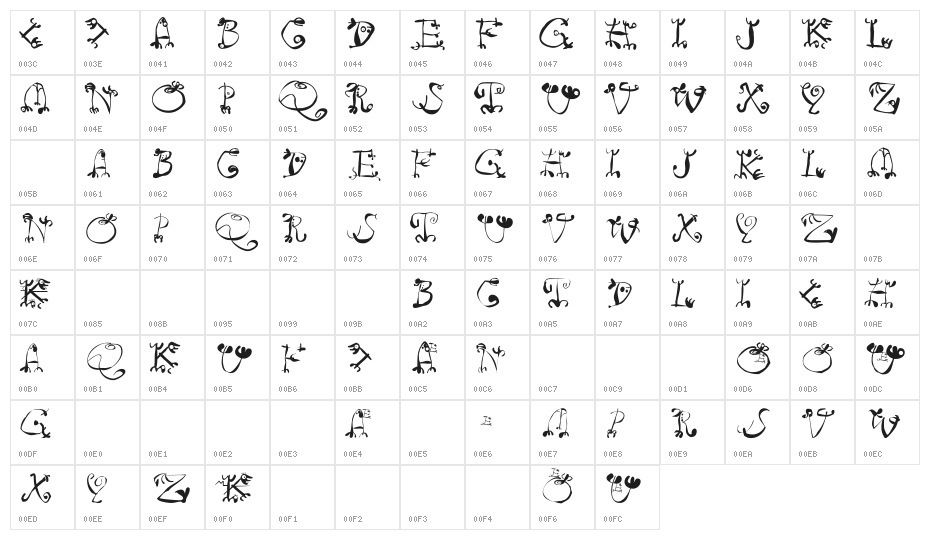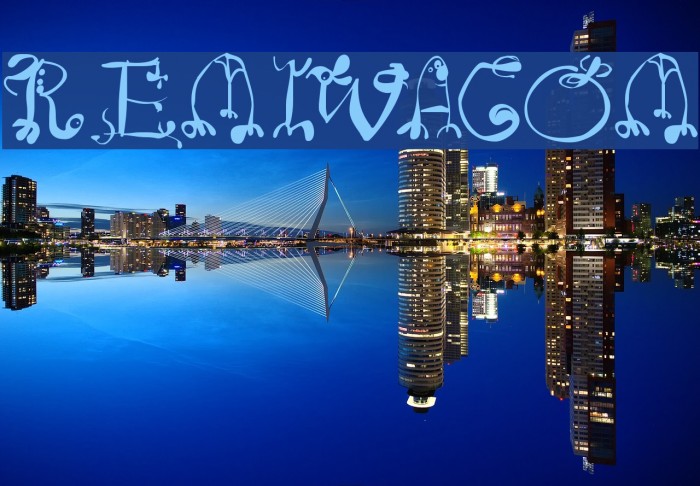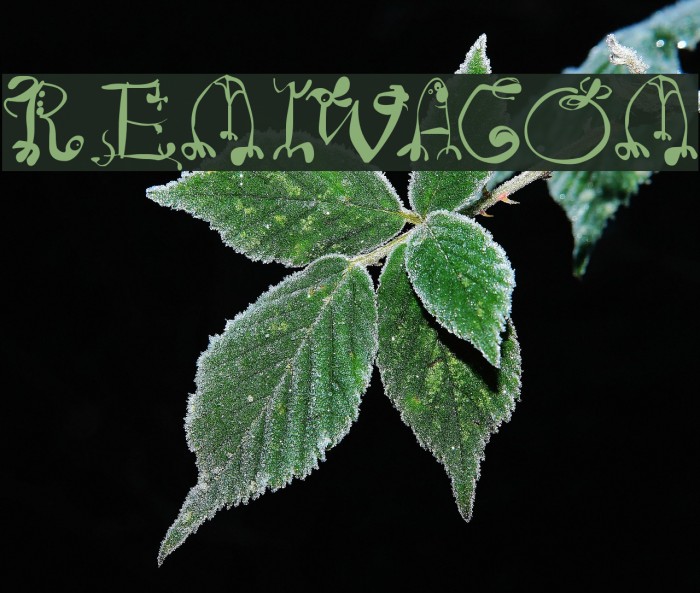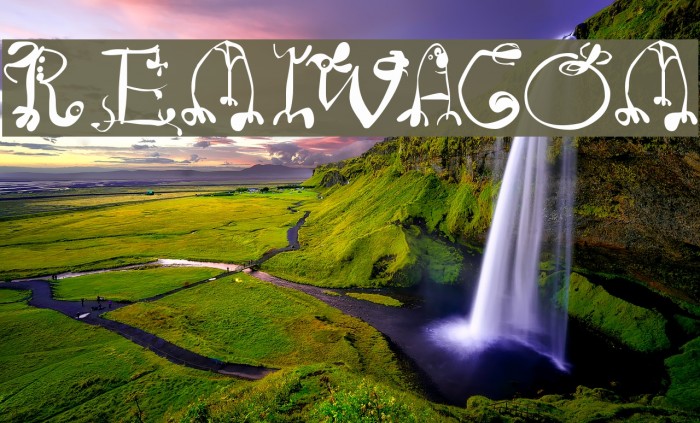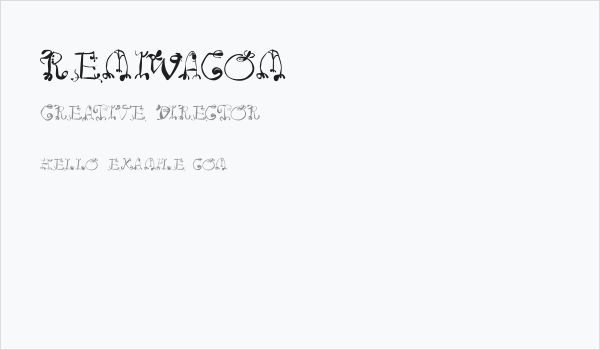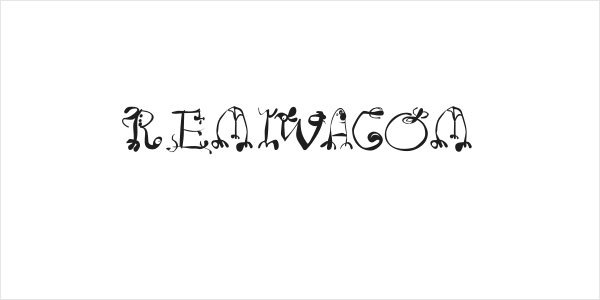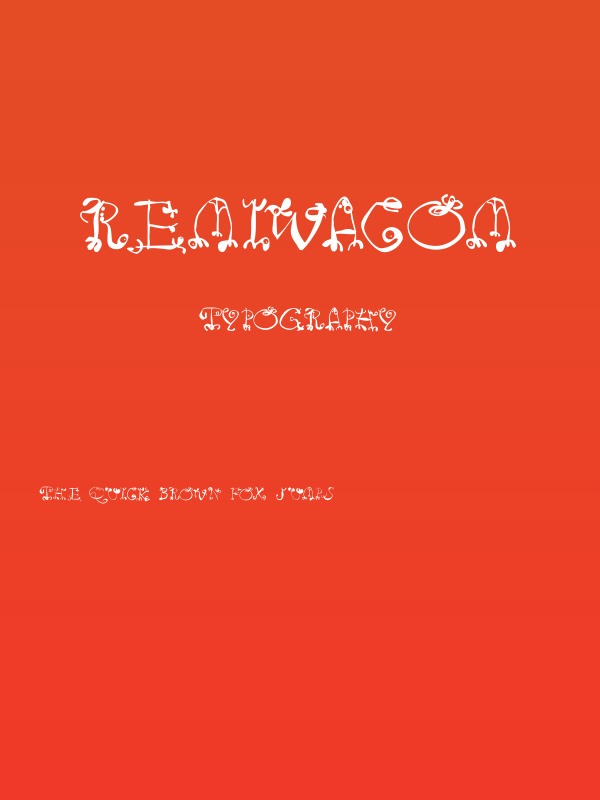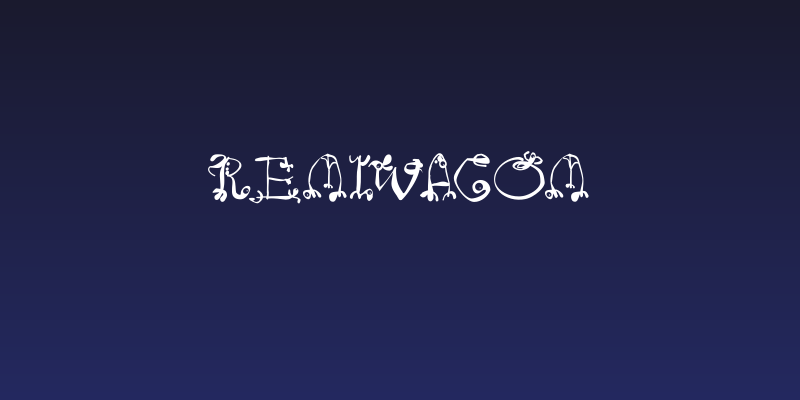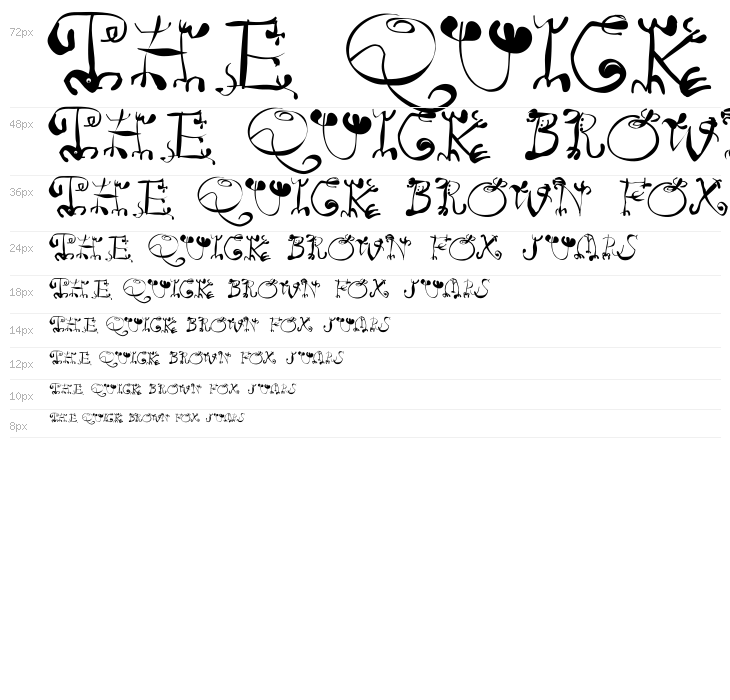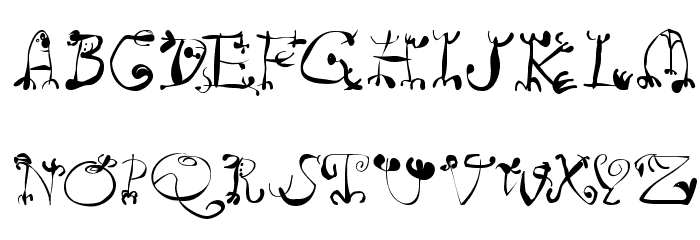
RemiWacom Font
This font features a whimsical and playful design, characterized by its decorative and ornate elements. Each letter is adorned with unique, intricate flourishes that resemble vines or tendrils, adding a touch of fantasy and creativity. The characters are bold and eye-catching, making them suitable for artistic and expressive projects. The overall style is highly decorative, with a strong emphasis on visual flair and individuality. This font is perfect for projects that require a distinctive and imaginative touch, such as invitations, posters, or any design that seeks to stand out with a creative flair.
Use CaseHeadlines, Logos, Artistic designs
Proposed ProjectsIdeal for invitations, artistic posters, fantasy-themed designs, and creative branding.